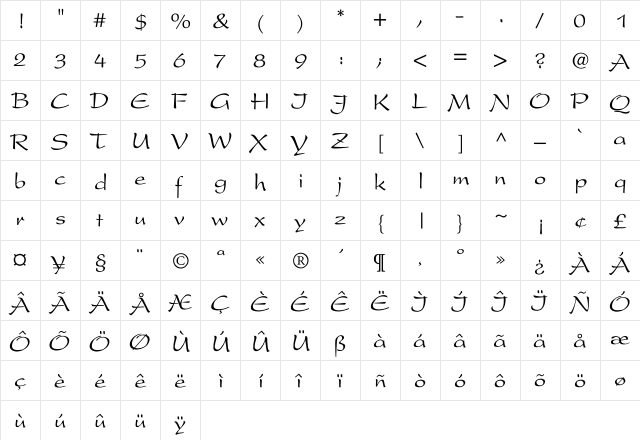
Shirely Regular
Design Context for Shirely Typeface
Shirely takes a measured approach to typography — its balanced proportions and neutral character make it a reliable workhorse for both digital and print work.
Pro Tip: Use Shirely in both headline and body roles to test its range before committing to a single application.